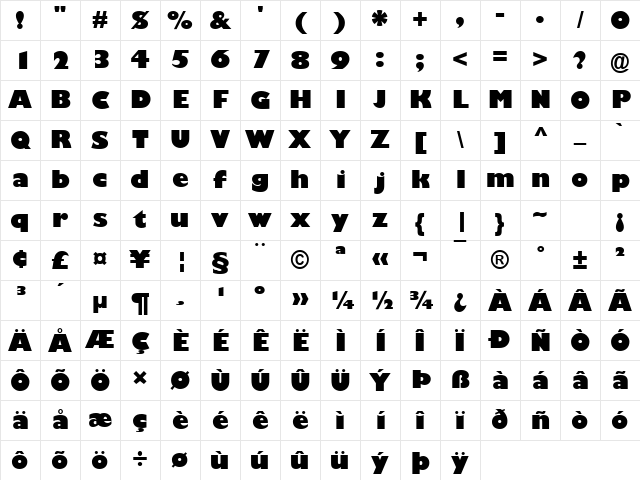
Complete Gill Sans Ultra Bold Bold glyph index. Displaying only characters natively supported by Gill Sans Ultra Bold Bold font.
Gill Sans Ultra Bold is a composed and adaptable typeface that performs quietly and consistently across a wide range of design contexts. Its bold stroke weight gives it real presence on the page.